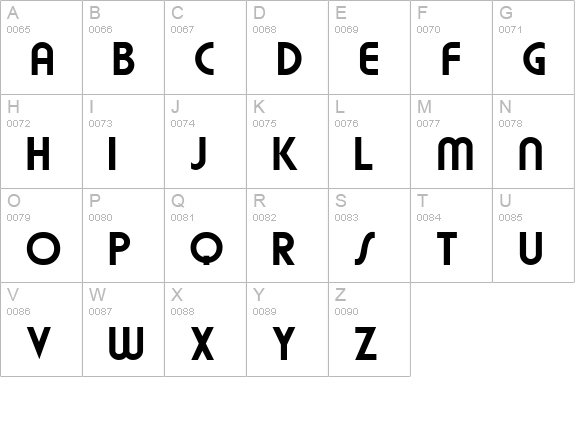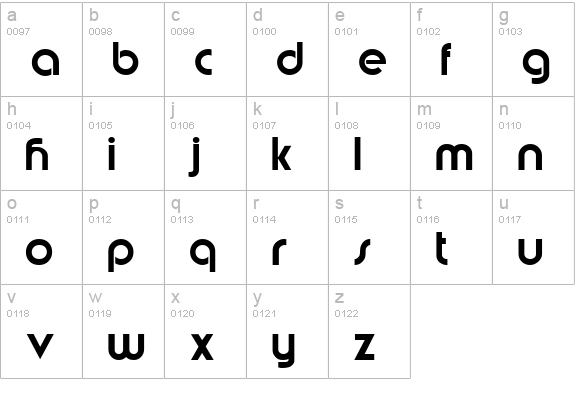
Brandish Regular is the standard, neutral variant in the Brandish typeface family \xE2\x80\x94 well suited to general body text, paragraphs, and standard typographic work.
Brandish Regular is a modern and stylish font that exudes elegance and sophistication. Its clean lines and sharp angles make it perfect for a wide range of design projects, from branding to editorial design. The versatility of this font allows it to be used in both digital and print applications, making it a valuable addition to any designer's toolkit. What sets Brandish Regular apart is that it is available for free download at FontsMarket.com, making it accessible to designers of all levels. Whether you're working on a personal project or a client commission, Brandish Regular is sure to elevate your designs and make a lasting impression. Download this stunning font today and unleash your creativity with Brandish Regular.